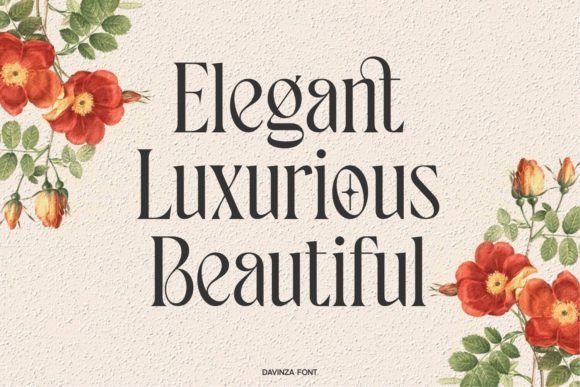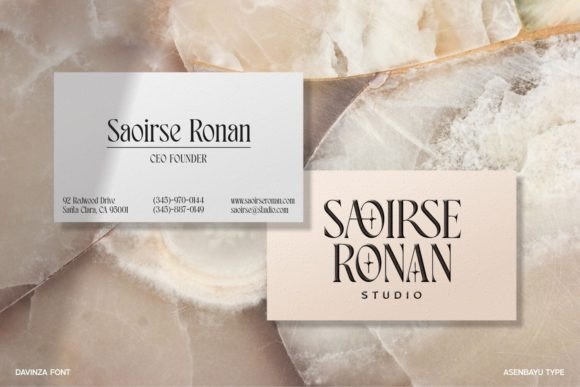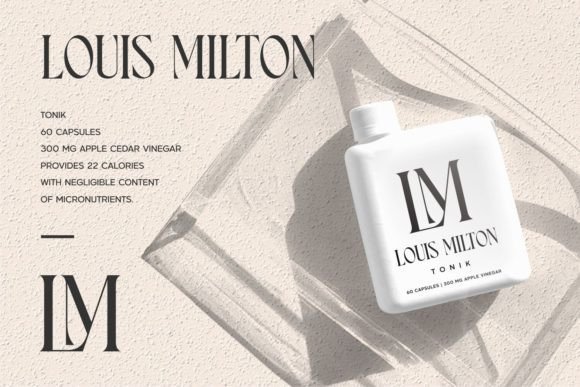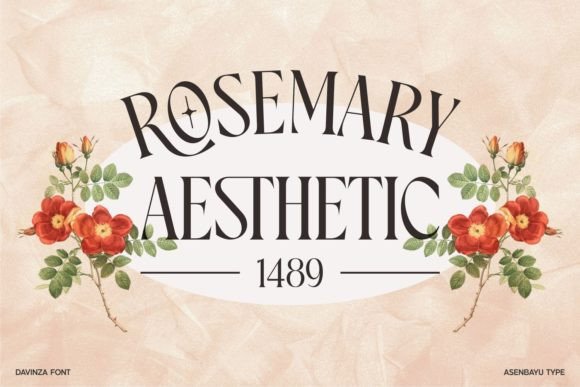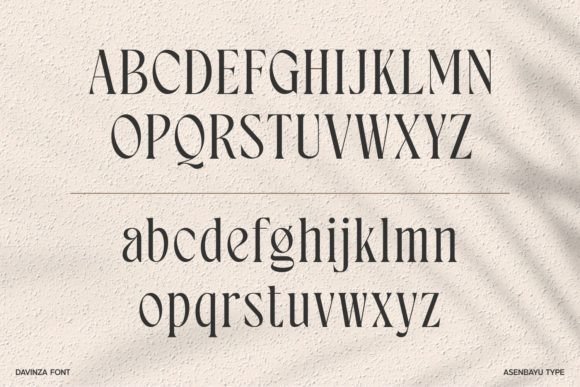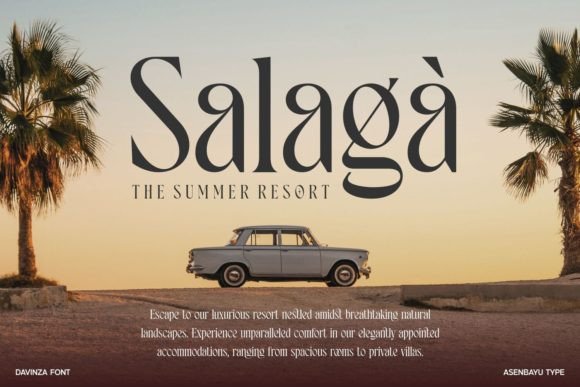
Davinza Font: Elevate Your Designs with Elegance and Sophistication
In the world of typography, a font can make or break a design. For designers and crafters seeking to add a touch of elegance and sophistication to their work, the Davinza font is an exceptional choice. This stunning, elegant serif typeface is designed to impress, with slim and tall letter proportions that exude a high-end and minimalist aesthetic.
The Versatility of Davinza Font
One of the standout features of the Davinza font is its versatility. Its classic serif design makes it suitable for both modern and vintage designs, allowing designers to experiment with different styles and themes. Whether you’re working on a logo design, poster, social media graphics, fashion brand, or website, Davinza font is an excellent choice.
The font’s slim and tall letter proportions give it a unique and distinctive look that can add a touch of sophistication to any design. Its elegant appearance makes it perfect for designs that require a high-end feel, such as luxury brands, fashion magazines, and upscale websites.
Features of Davinza Font
The Davinza font comes with a range of features that make it an excellent choice for designers. Some of its key features include:
- Stylistic Alternate Features: The font offers stylistic alternate features that allow designers to customize their designs and achieve the desired look.
- Ligature Features: The font also features ligatures, which enable designers to create unique and visually appealing text.
- Elegant Serif Design: The font’s elegant serif design makes it perfect for designs that require a touch of sophistication.
- High-End and Minimalist Aesthetic: The font’s slim and tall letter proportions give it a high-end and minimalist aesthetic that is perfect for luxury brands and upscale designs.
Using Davinza Font in Your Designs
- Use it for Headings and Titles: The font’s elegant design makes it perfect for headings and titles, where you want to make a statement.
Benefits of Using Davinza Font
There are several benefits to using the Davinza font in your designs. Some of the key benefits include:
- Elegance and Sophistication: The font’s elegant design adds a touch of sophistication to any design.
- Versatility: The font’s versatility makes it suitable for a wide range of designs, from modern and vintage to luxury and minimalist.
- Customization: The font’s stylistic alternate and ligature features allow designers to customize their designs and achieve the desired look.
- High-Quality Design: The font’s high-quality design ensures that it will look great in any design, whether it’s printed or digital.
In conclusion, the Davinza font is an exceptional choice for designers and crafters seeking to add a touch of elegance and sophistication to their work. Its slim and tall letter proportions, elegant serif design, and range of features make it perfect for a wide range of designs. Whether you’re working on a logo design, poster, social media graphics, fashion brand, or website, the Davinza font is sure to impress.